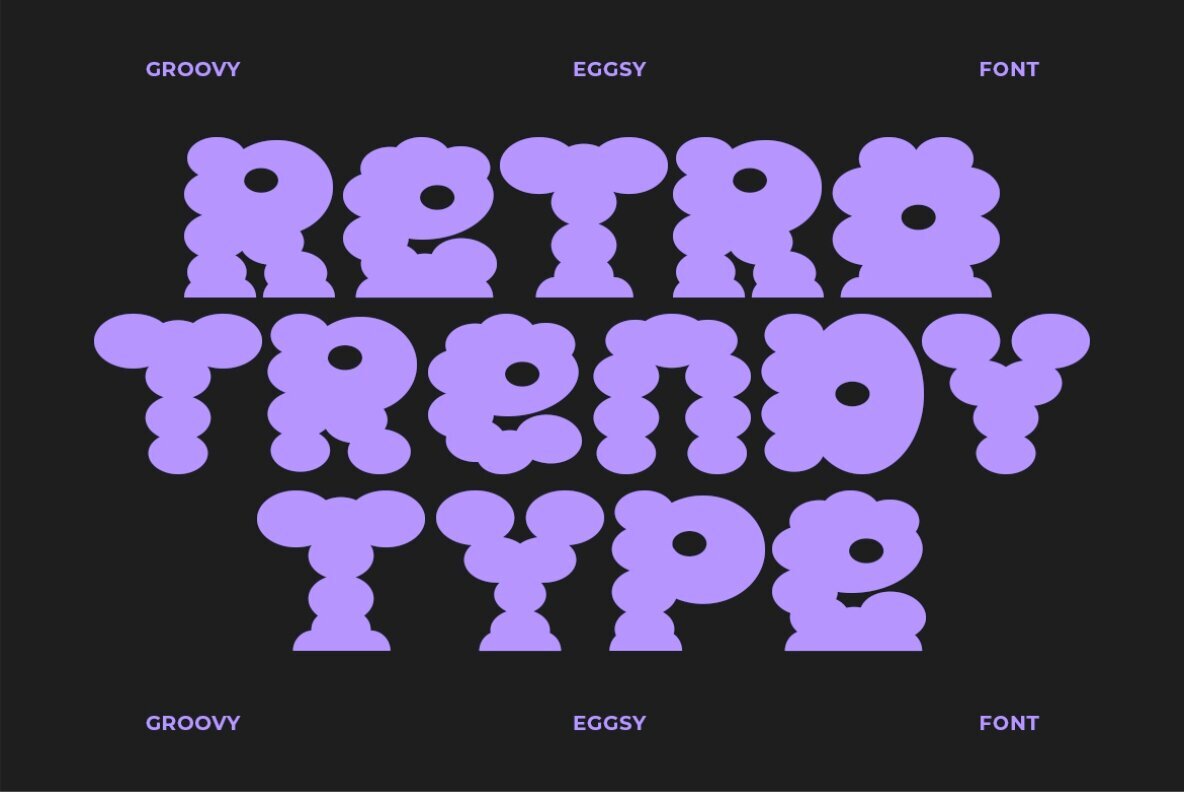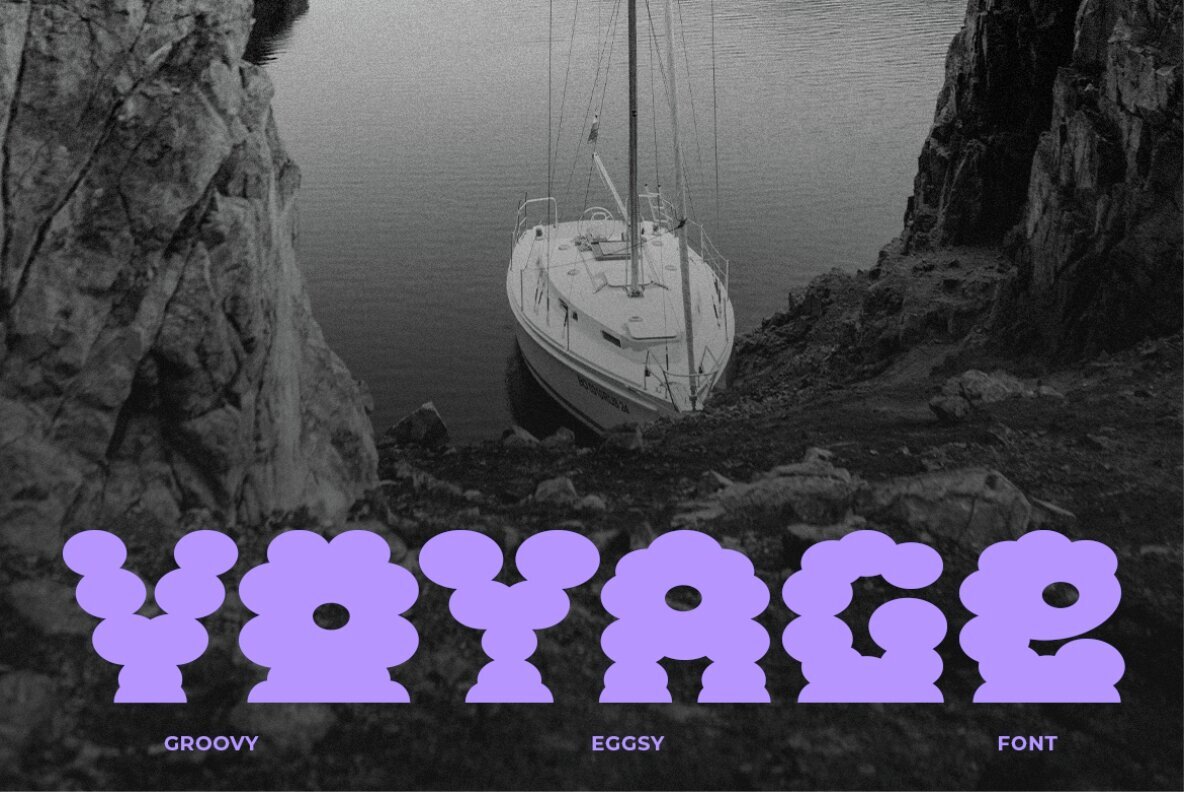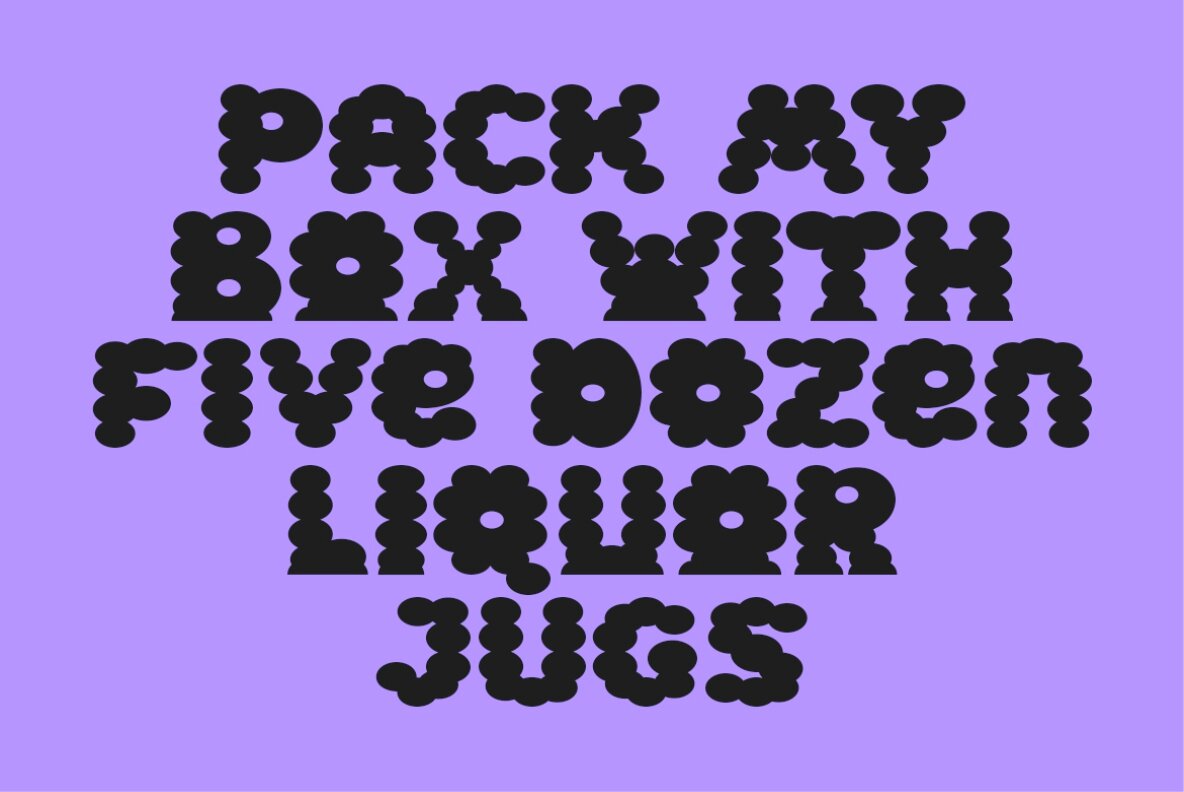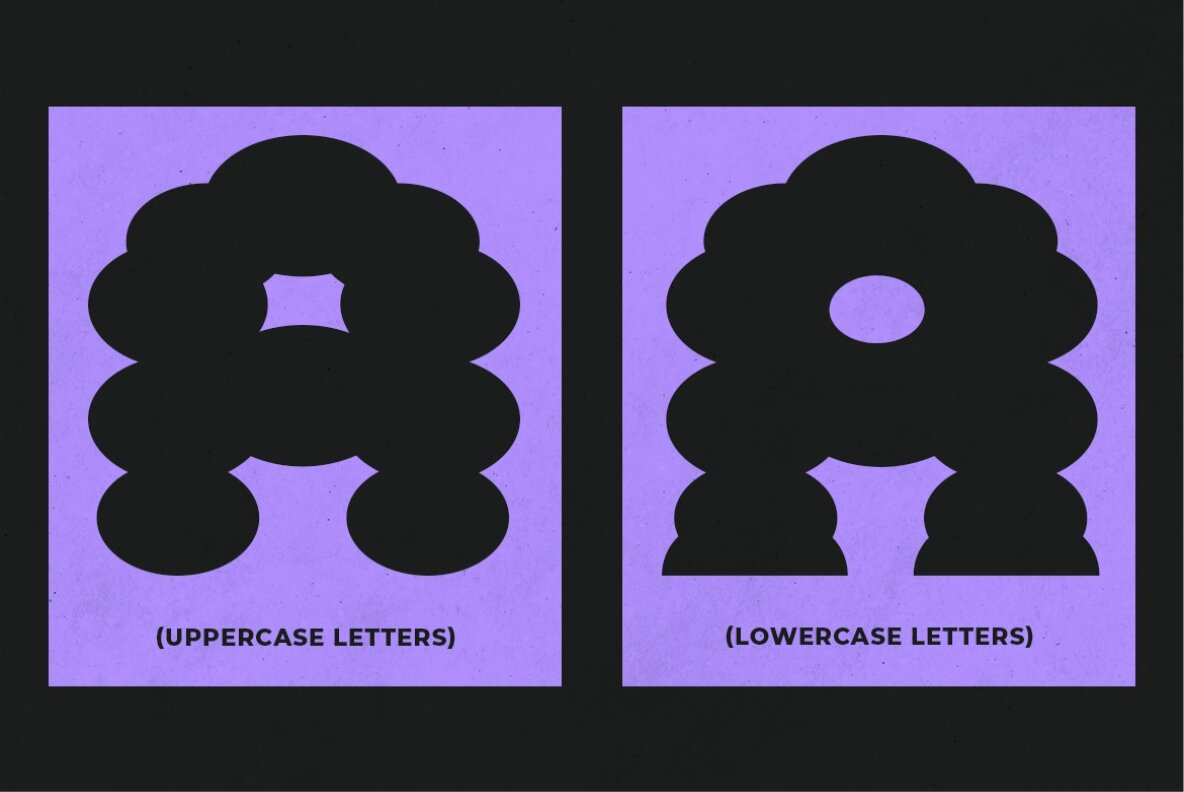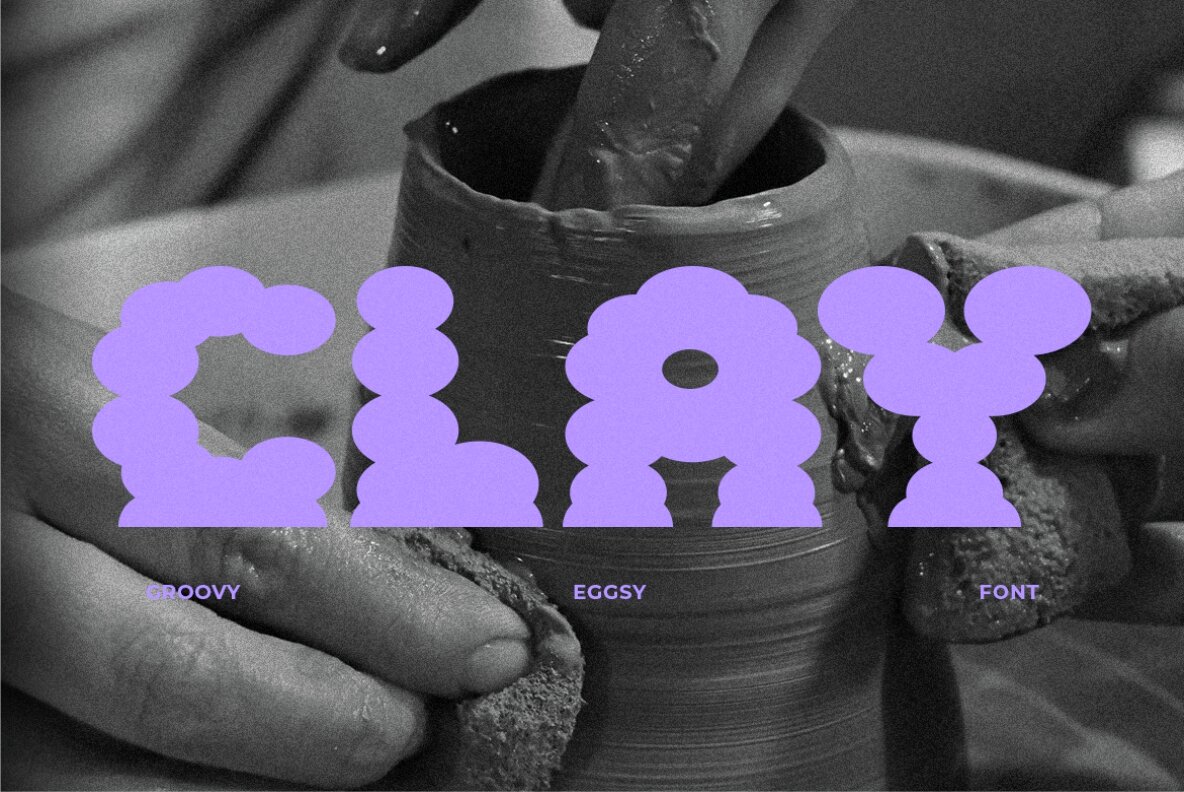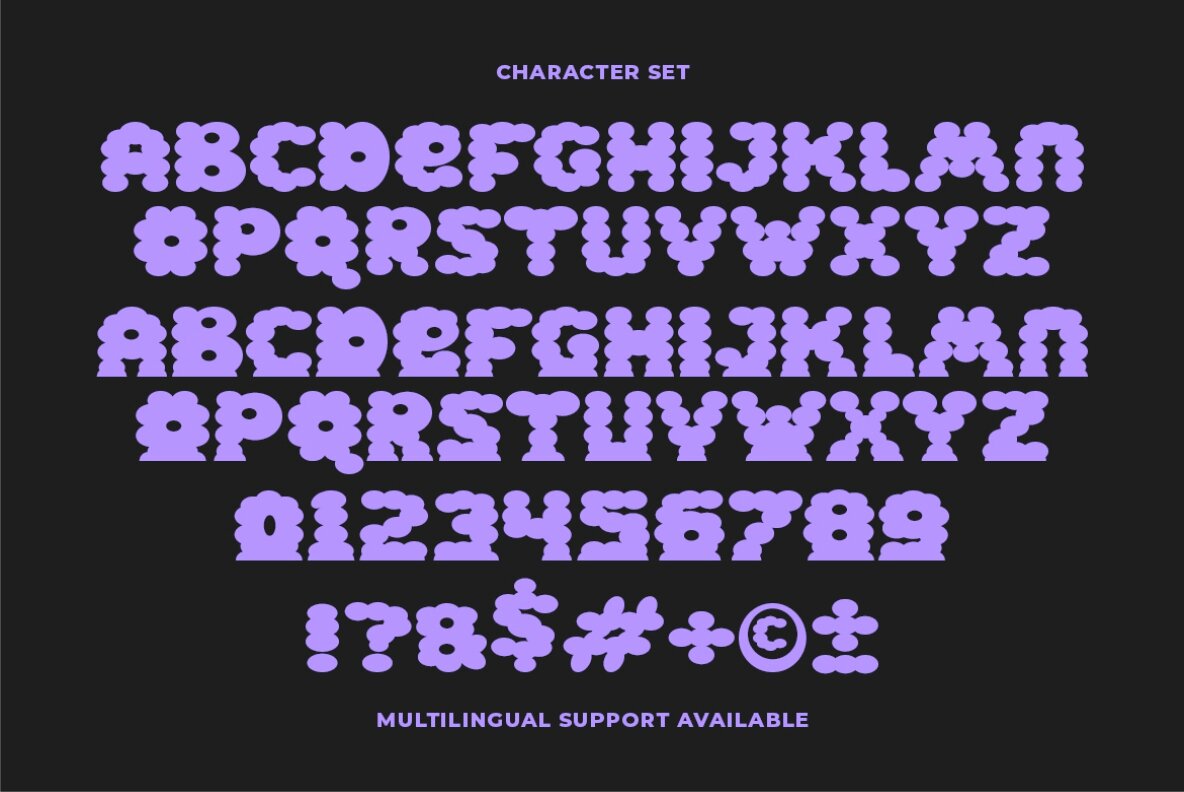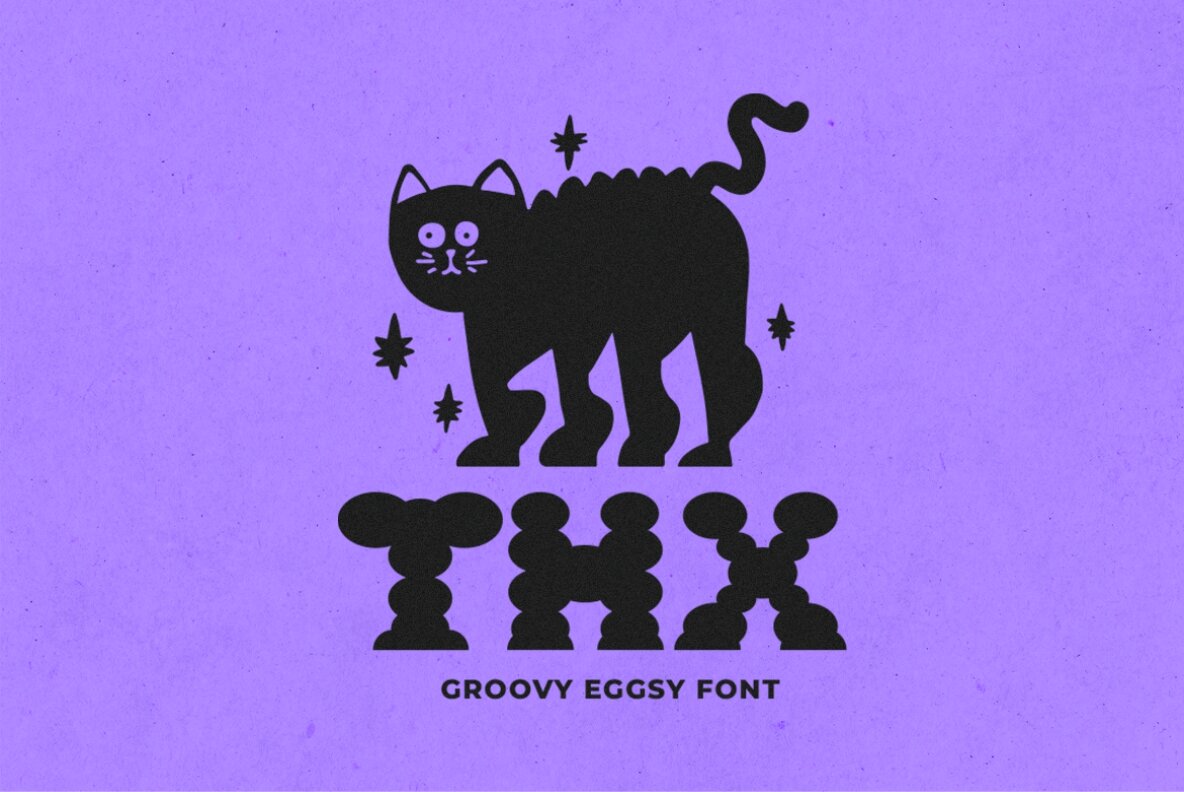
GF Eggsy Font
GF Eggsy
GF Eggsy is a bold, decorative font that boasts a unique, cloud-like design. With its soft curves and playful style, GF Eggsy adds a whimsical and fun element to any project. This font's boldness ensures your text stands out, infusing it with creativity and charm.
Features of GF Eggsy include a complete set of uppercase and lowercase letters, numerals, punctuation marks, and multilingual support. Ideal for designs that require a lighthearted and distinctive touch, GF Eggsy can enhance visual appeal across a variety of applications.